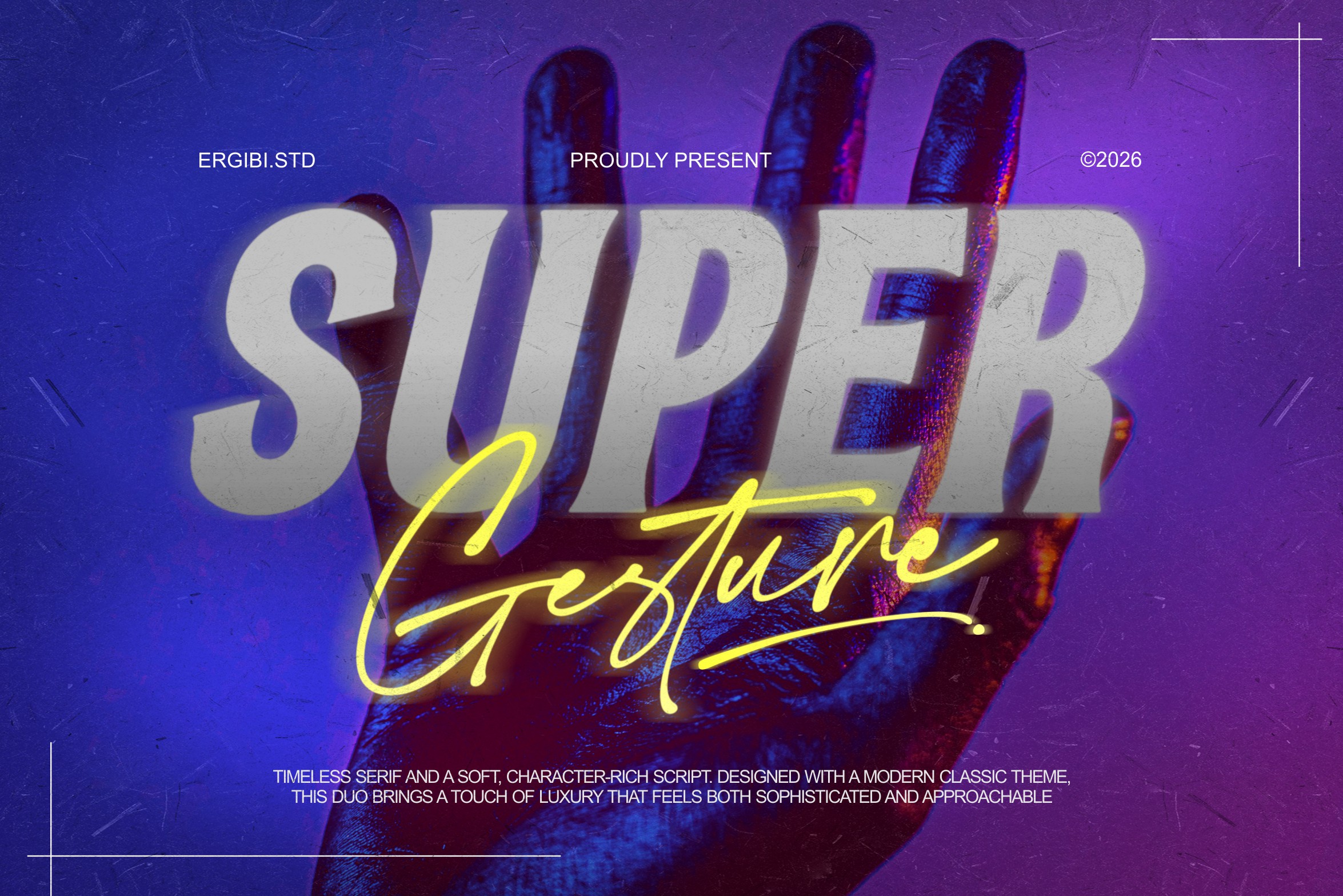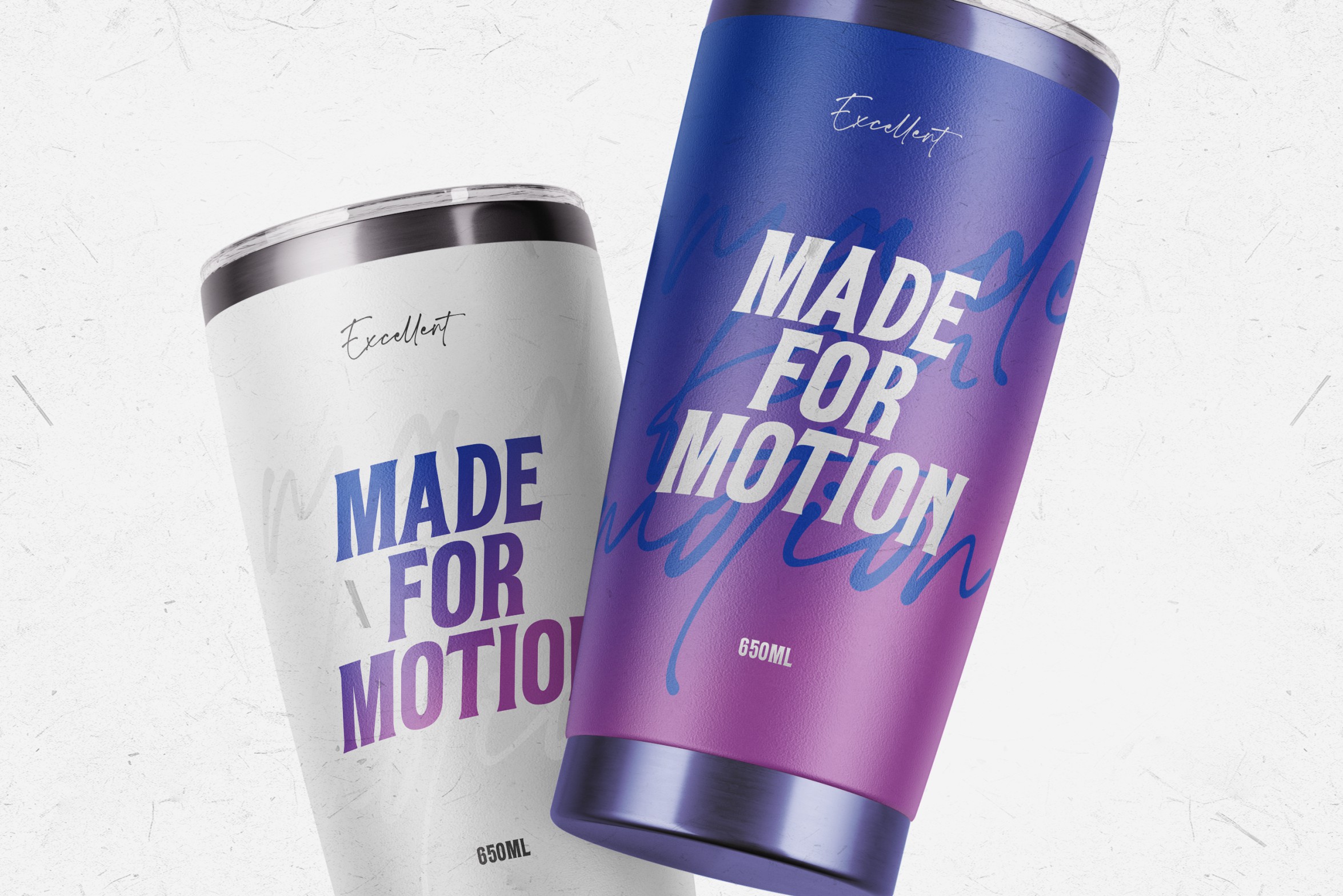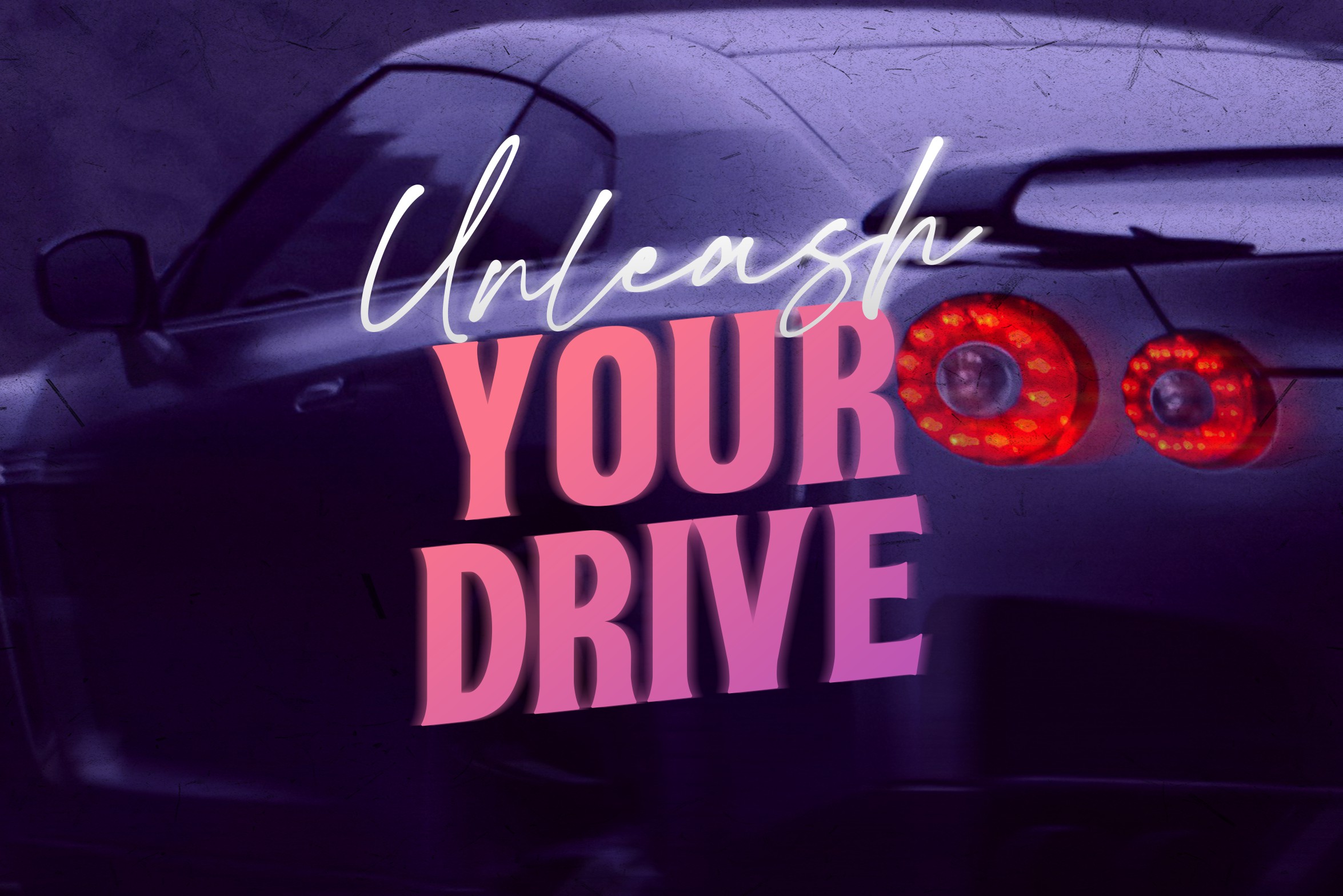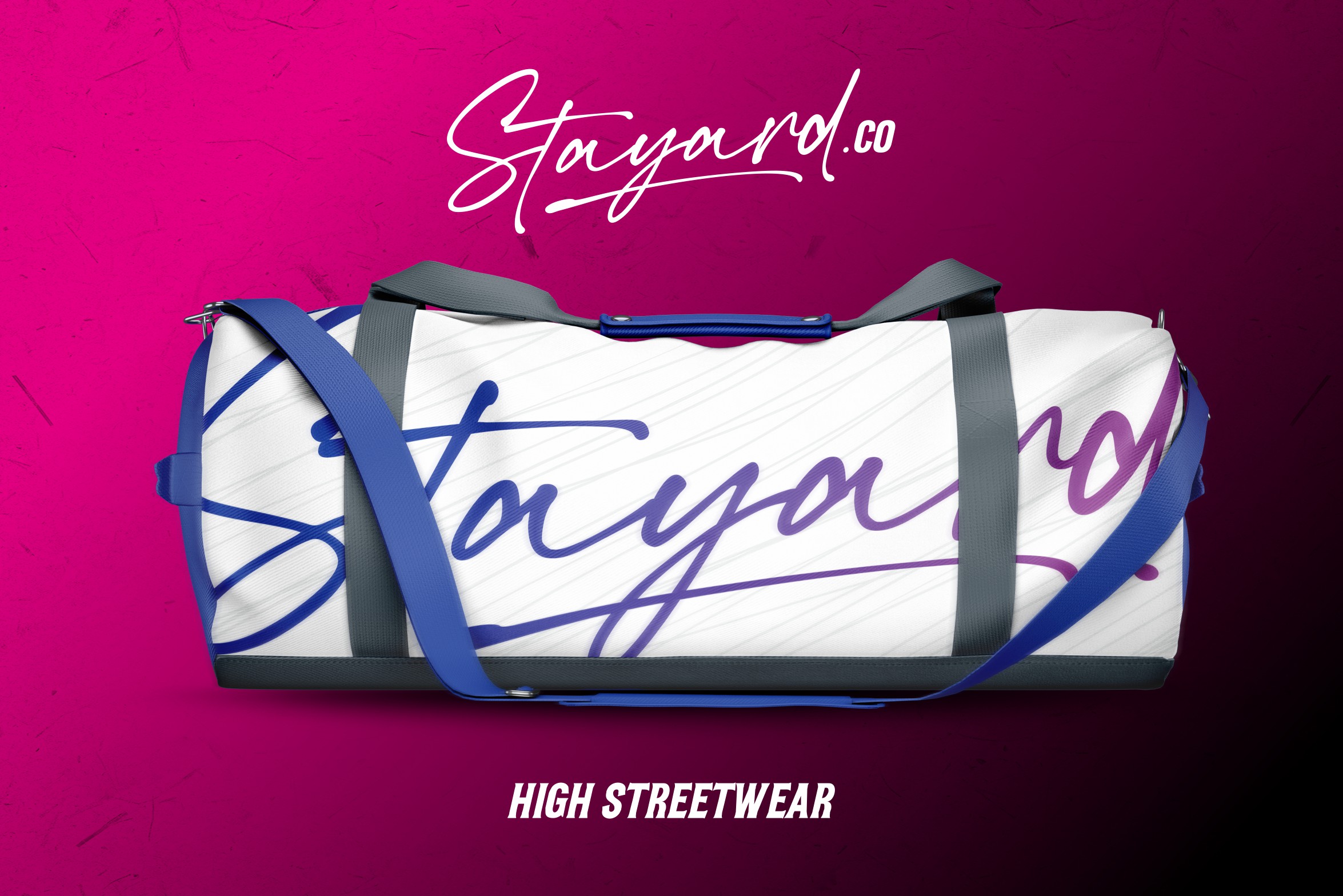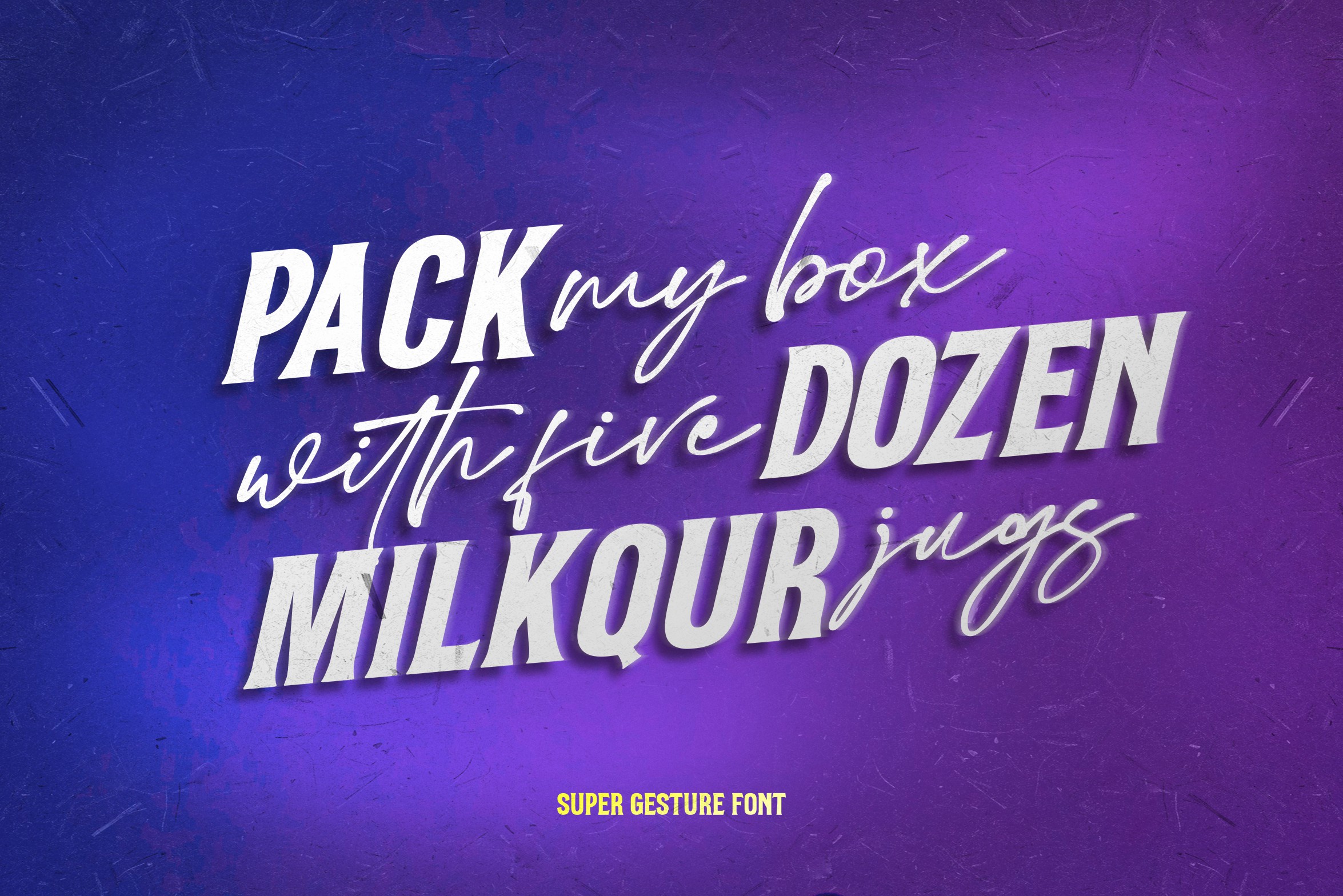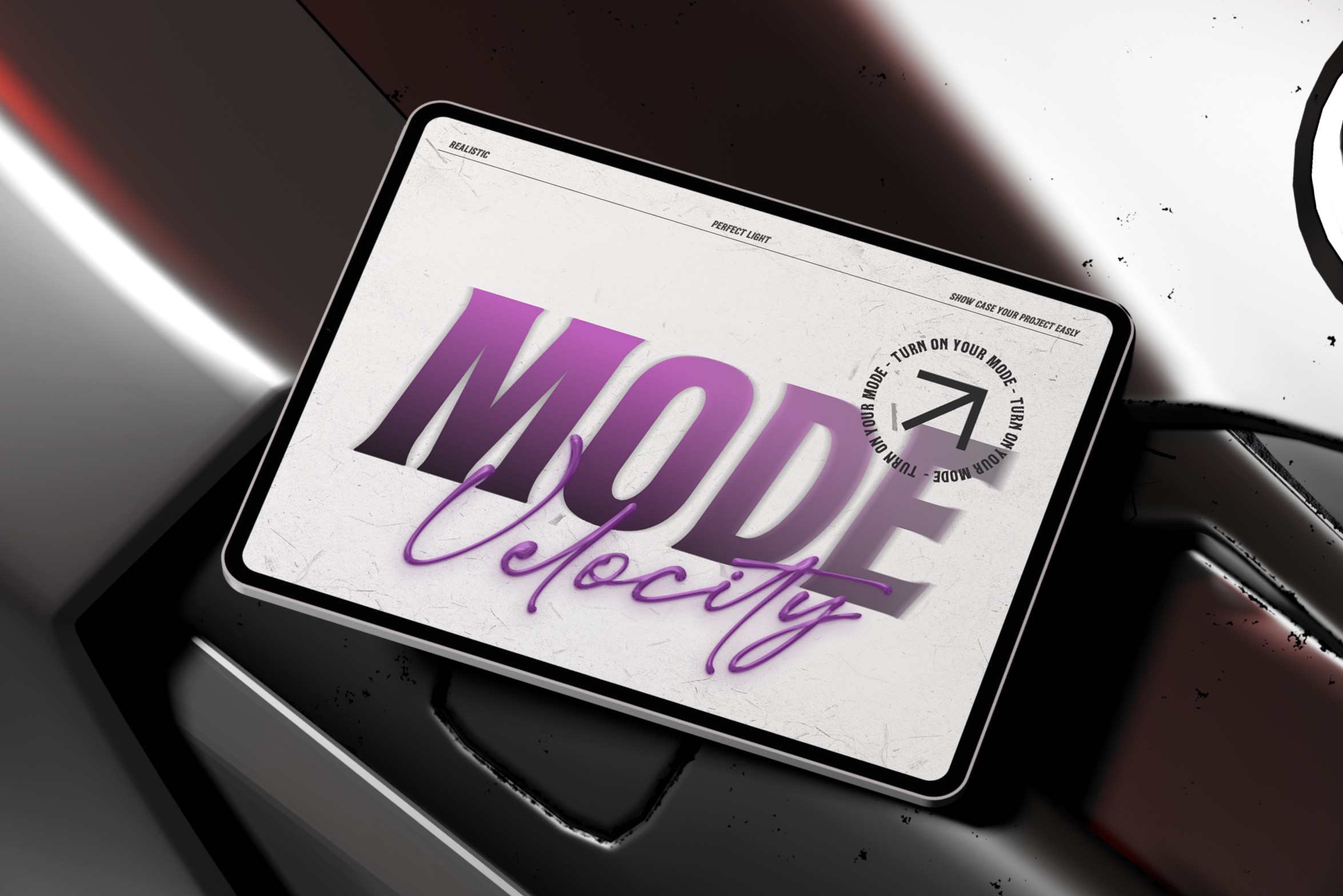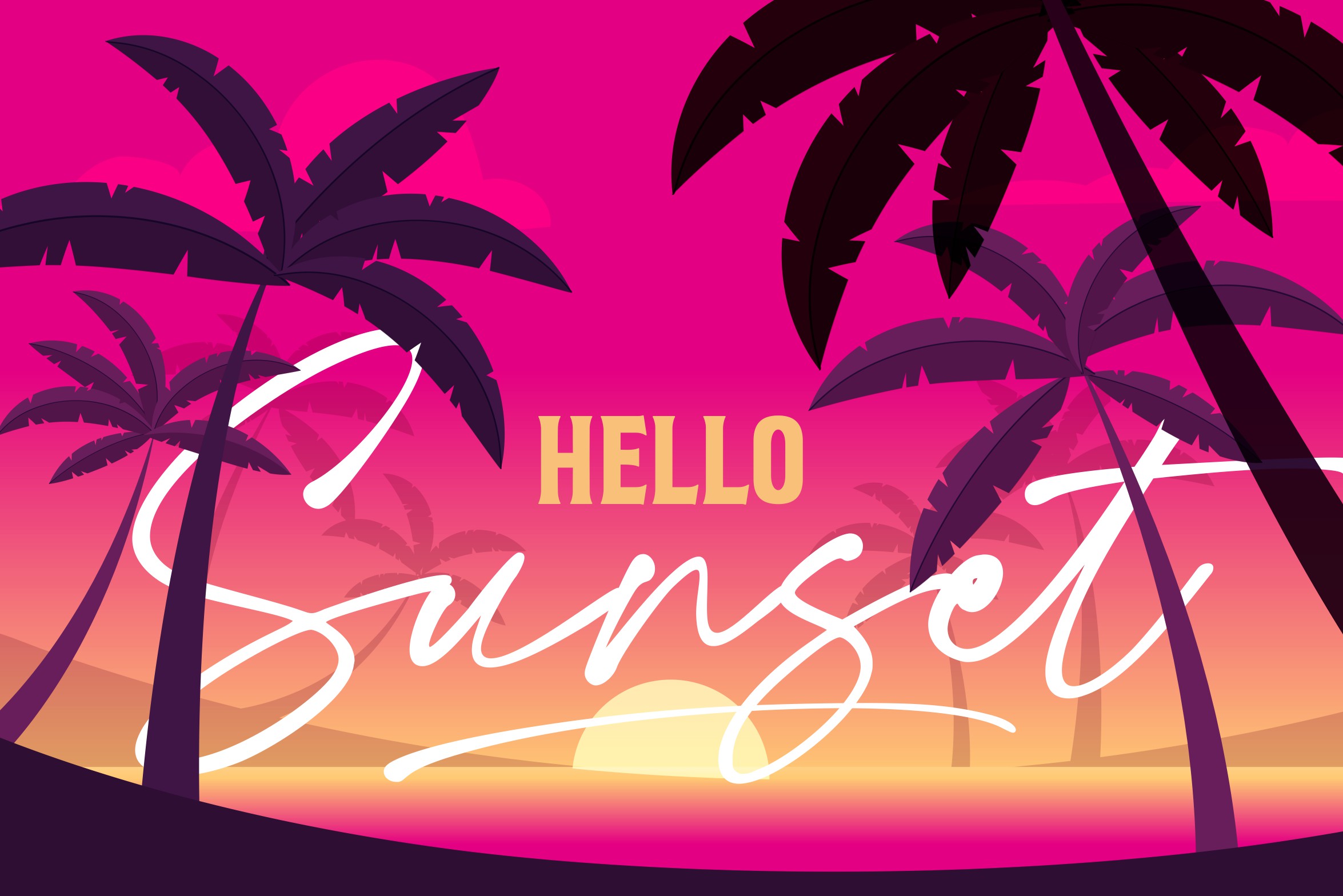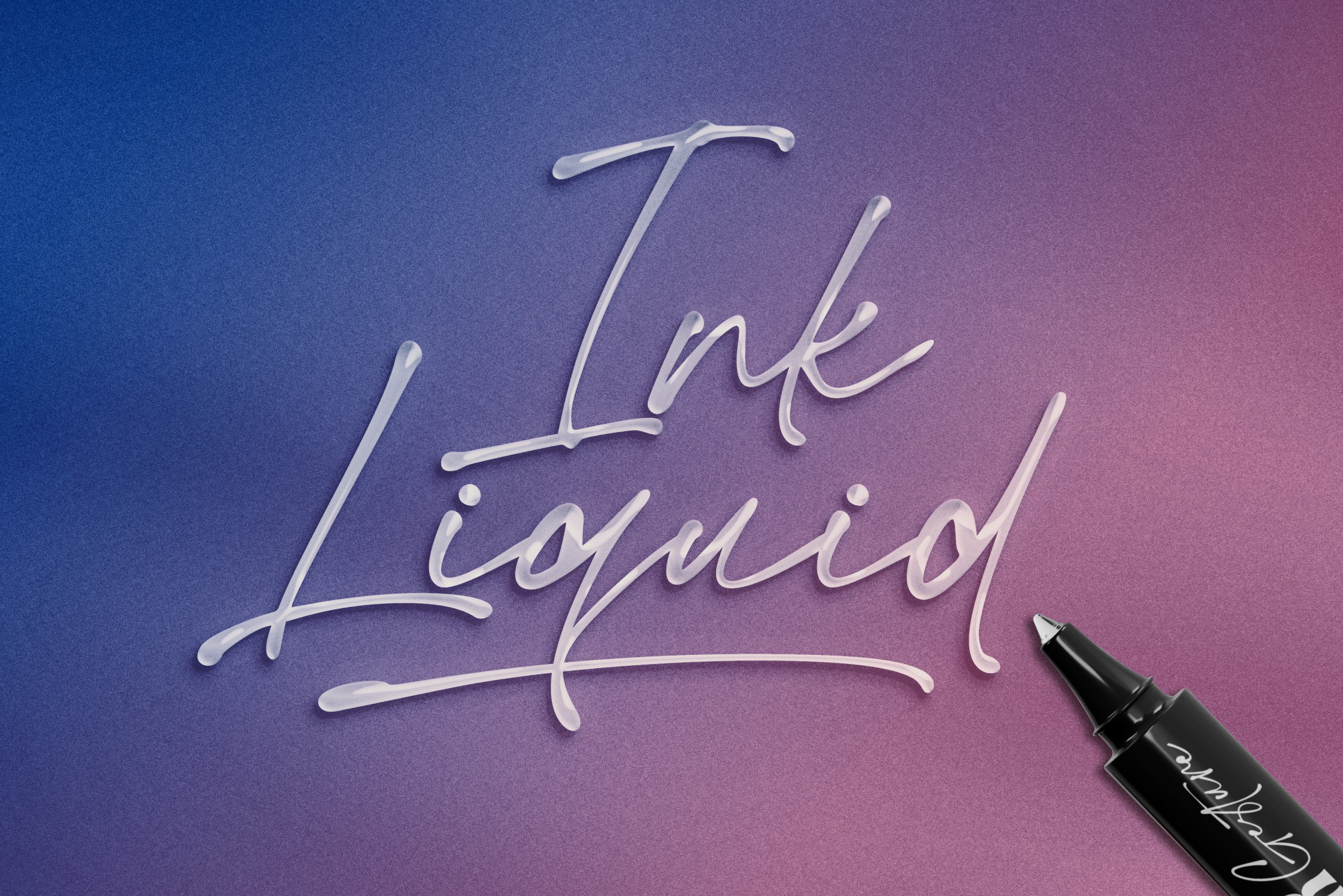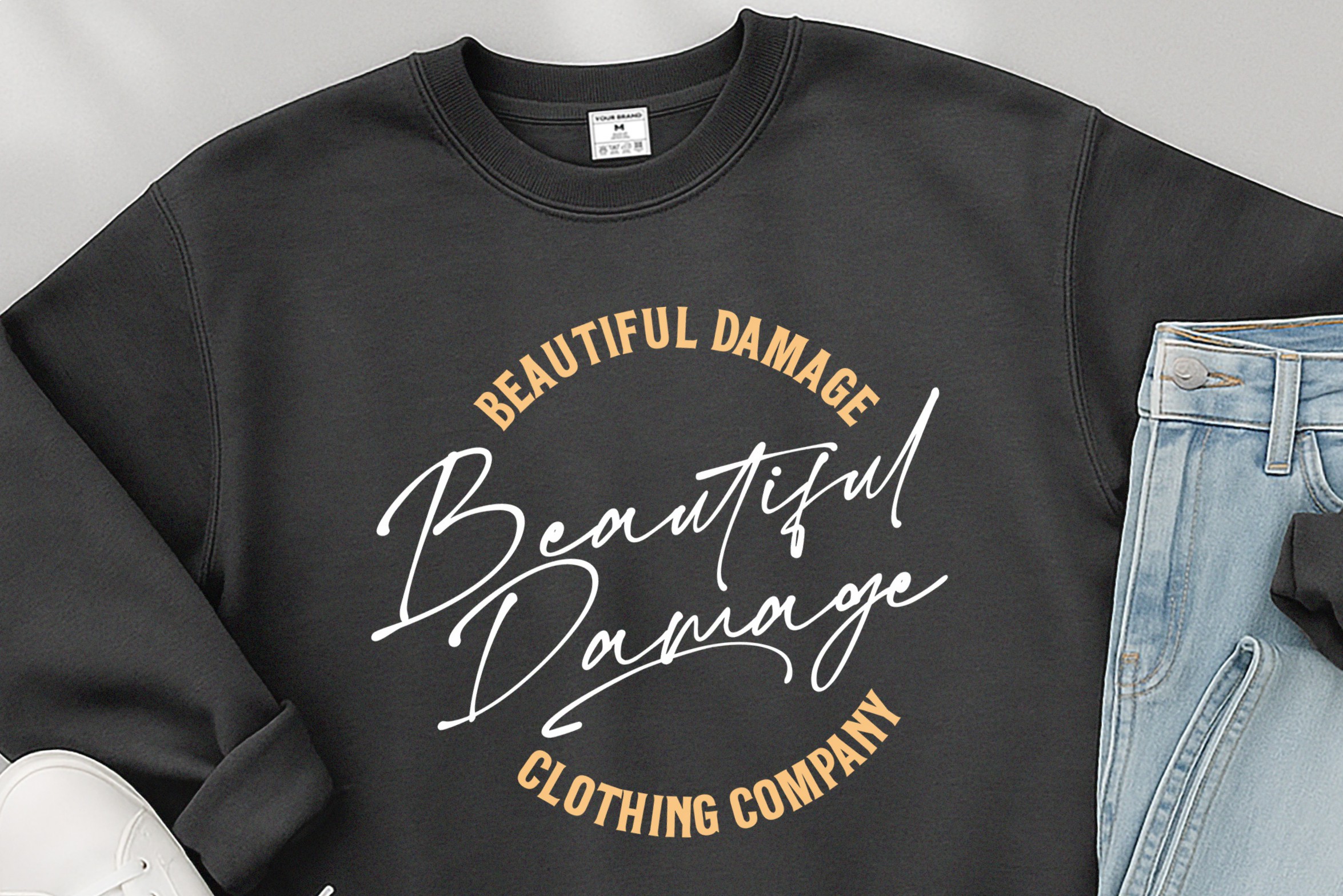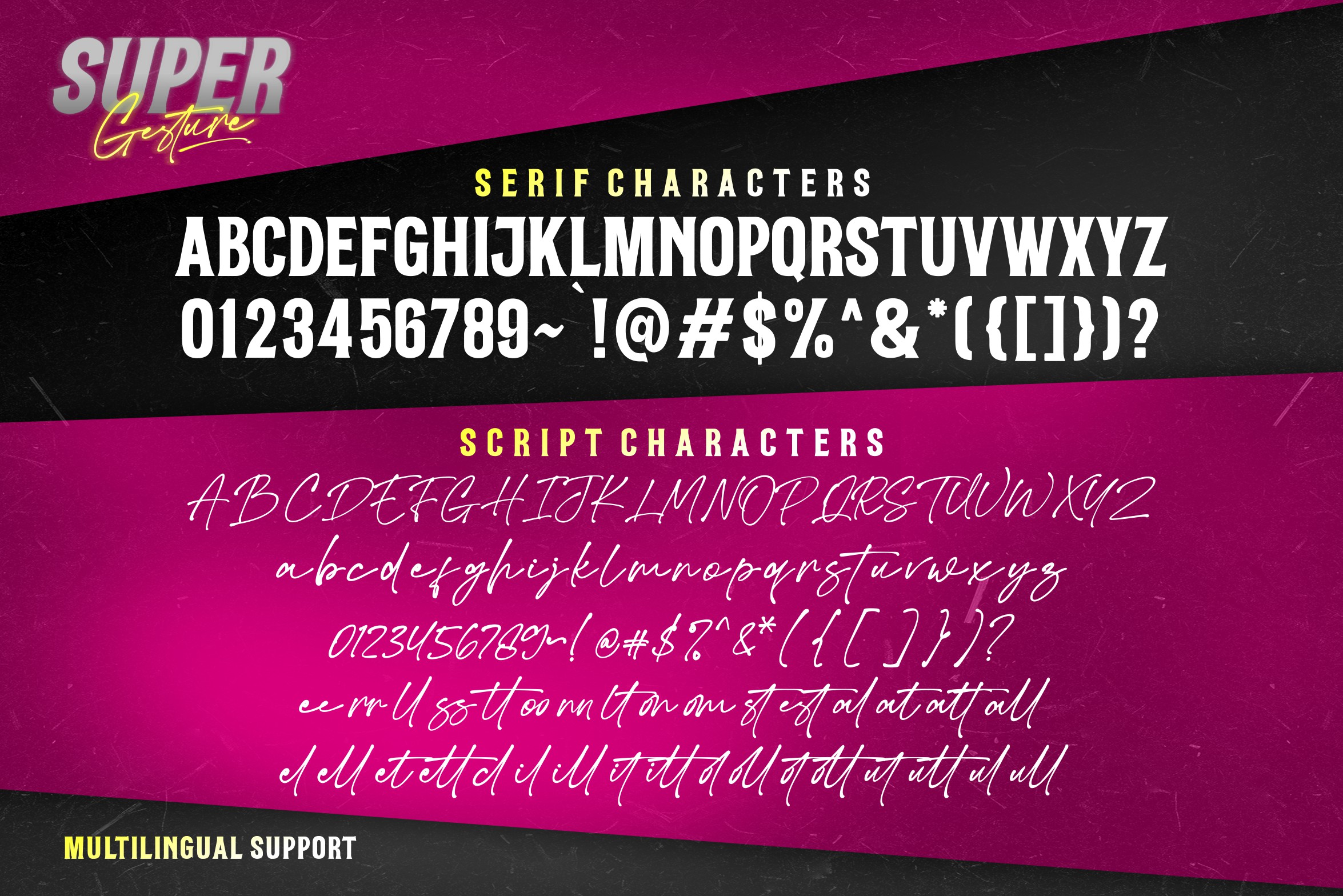
Super Gesture is a striking font duo that blends a bold, timeless serif with a fluid, expressive script. Designed to create a perfect balance between structure and movement, this pairing delivers a powerful visual contrast that feels both modern and sophisticated.
Perfect for branding, editorial layouts, posters, packaging, and luxury visuals, Super Gesture offers versatility and style in one complete set. Whether used together or separately, each font stands strong while enhancing the overall composition.